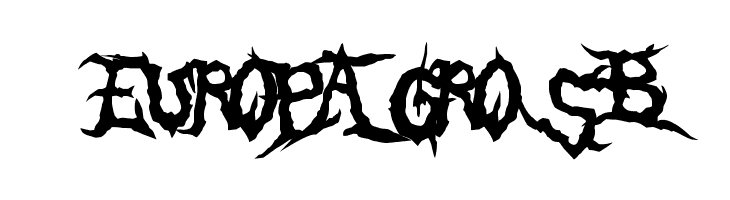
A bold, hand-drawn style font with irregular, energetic strokes and expanded width.
A jagged, eerie font with elongated, scratch-like letterforms.
A wild, jagged font with a dripping, dynamic style.
A rugged, distressed font with jagged edges and a hand-drawn appearance.
A bold, distressed font with a rugged, grunge-like appearance.
A bold, grungy font with a dripping effect, perfect for horror or punk themes.
A distressed, grungy font with a dripping paint effect.
A distressed, jagged font with a chaotic and edgy appearance.
A bold, thorn-like decorative font with a chaotic, edgy style.